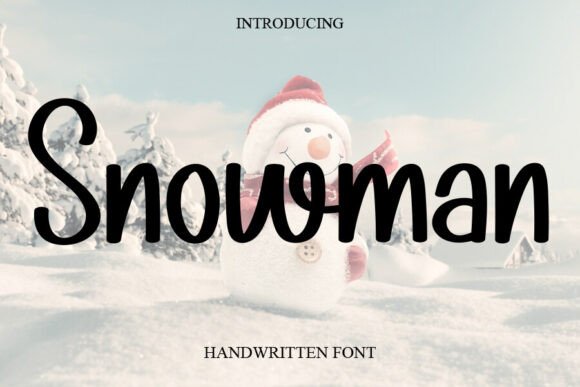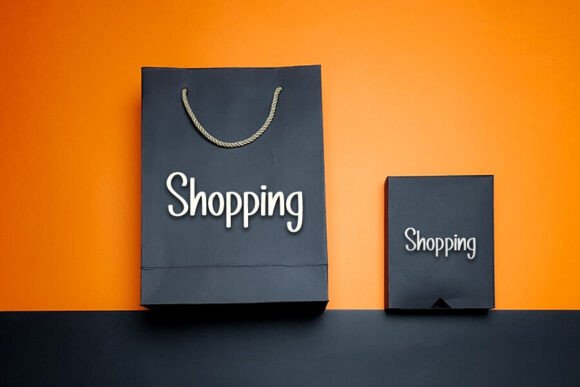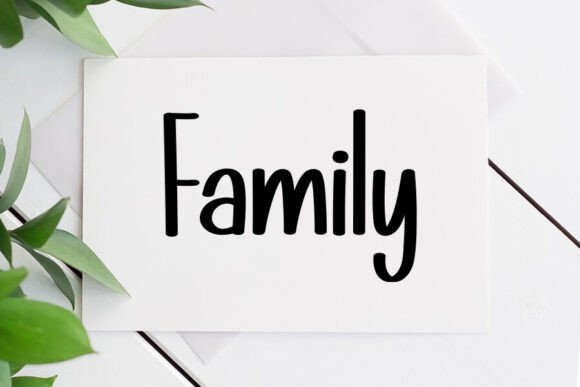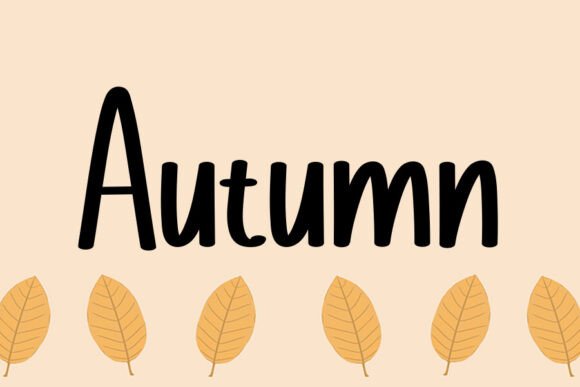
Snowman Font: A Cute Handwritten Script for Festive Crafts & DIY
About the Snowman Font
From logos to headlines, the Snowman Font is the perfect choice for making a lasting impression. Snowman is a sweet and cursive handwritten font. This gentle font will look gorgeous on a variety of design ideas. It will add a joyful and romantic touch to each of your projects! Perfectly fit for branding, logo, wedding things, greeting cards, fashion, lookbook, marketing promotion, and any time you want your design to look fancy and elegant but still casual.
Snowman Font Usage Examples
Snowman Font Example